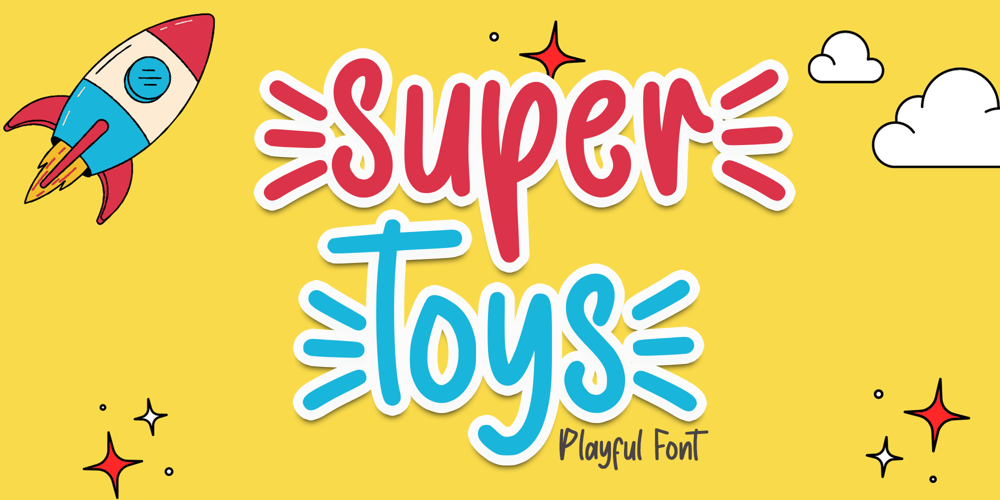
Super Toys Font Family was designed by Alif Ryan Zulfikar and published by Sakha Design. Super Toys contains 2 styles and family package options. Super Toys is a cute and quirky display font. It will add an incredibly joyful touch to your designs. Add this beautiful display font to each of your creative ideas and notice how it makes them stand out!